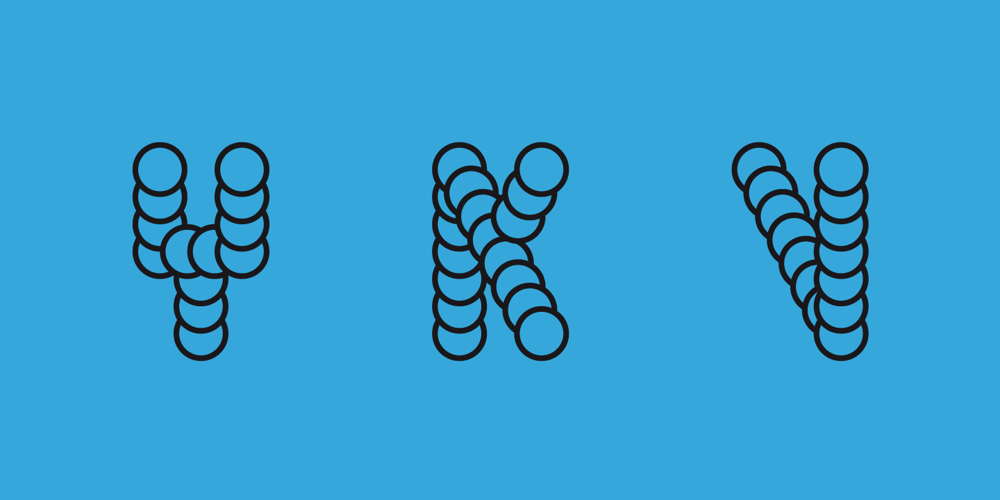
SUSHI
SUSHI font
SUSHI Font Family was designed by Bartosz Panek and published by Fontsphere. SUSHI contains 2 styles and family package options. SUSHI is an unusual font family (2 styles), created by Bartosz Panek. The idea was created while working on the design of a certain logo. With time, a whole font was created from modular elements, which in its form brings associations with food, fish and sushi. The font contains uppercase characters, numerals and a large range of punctuation (over 220 glyphs).